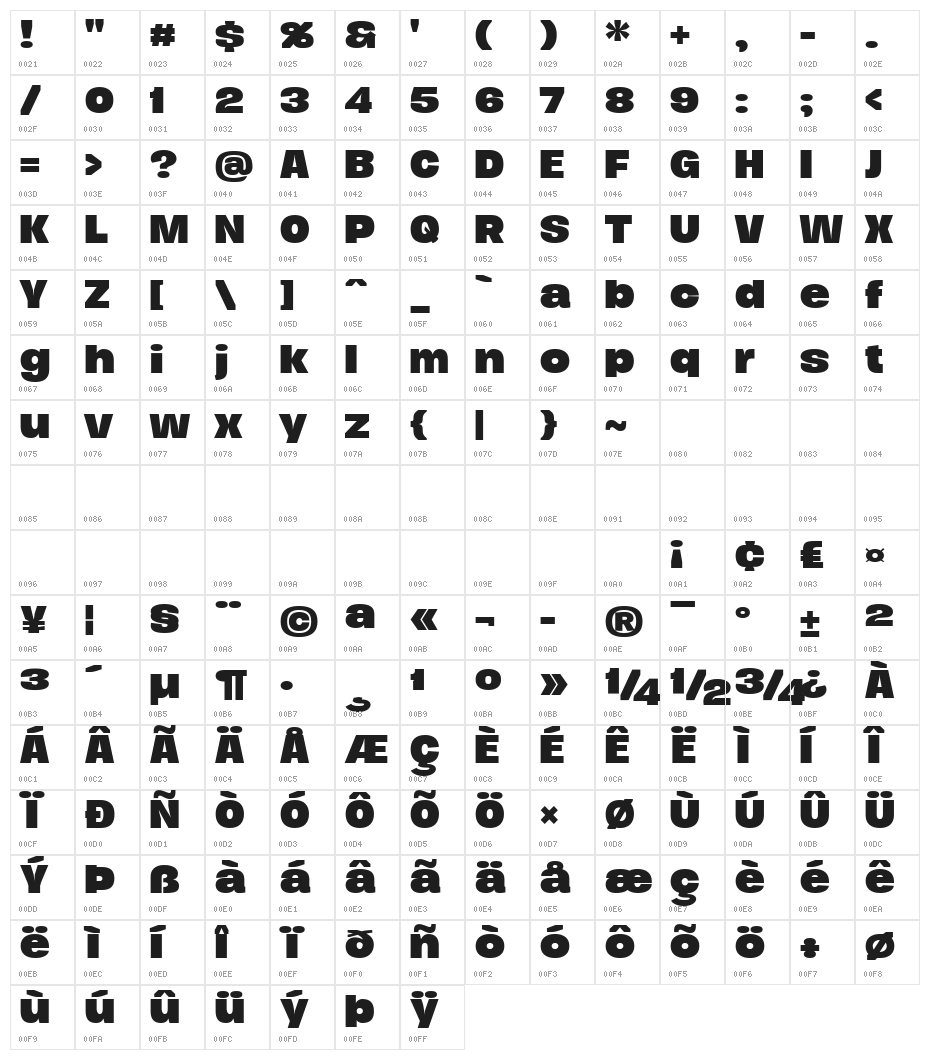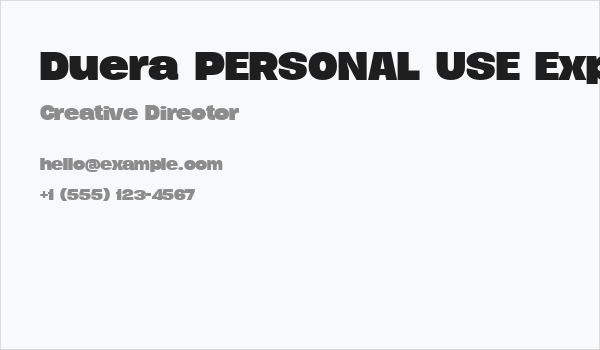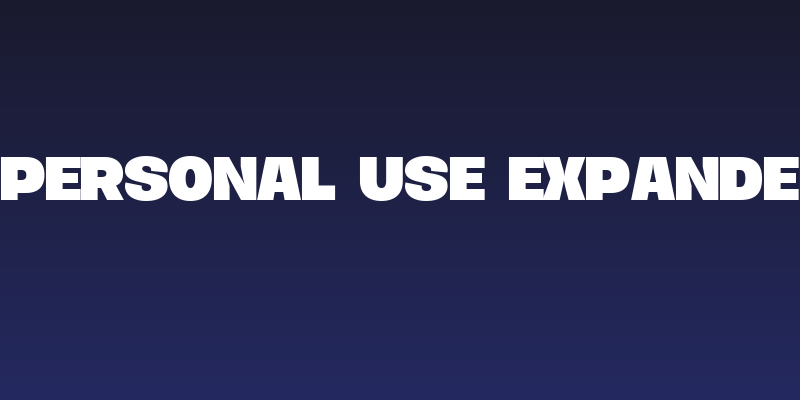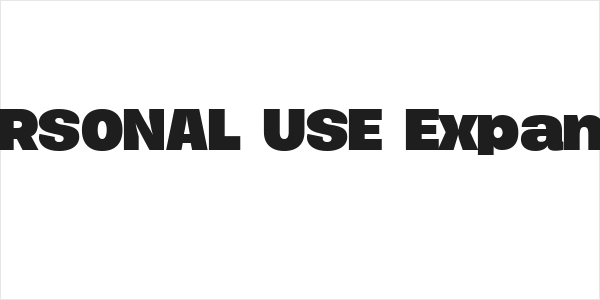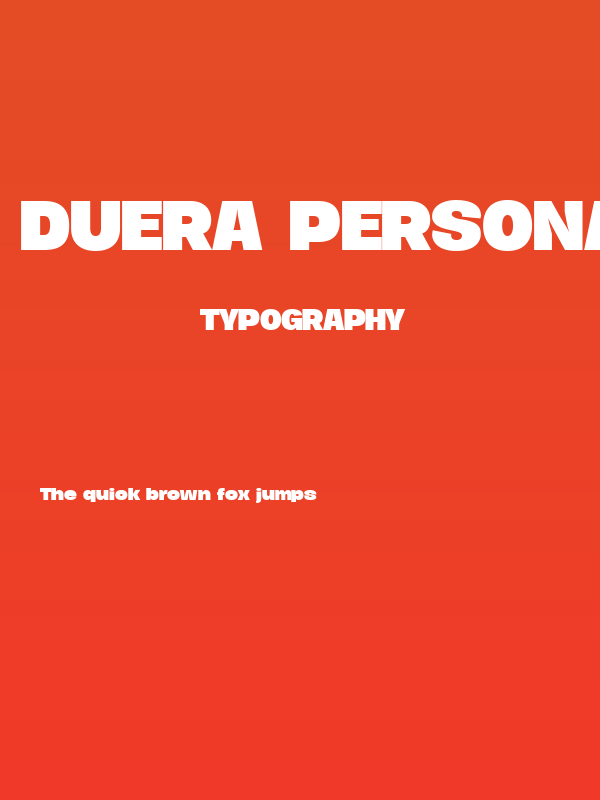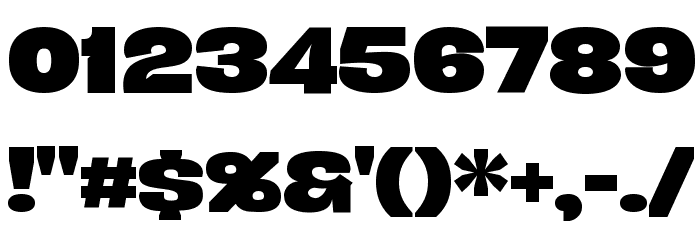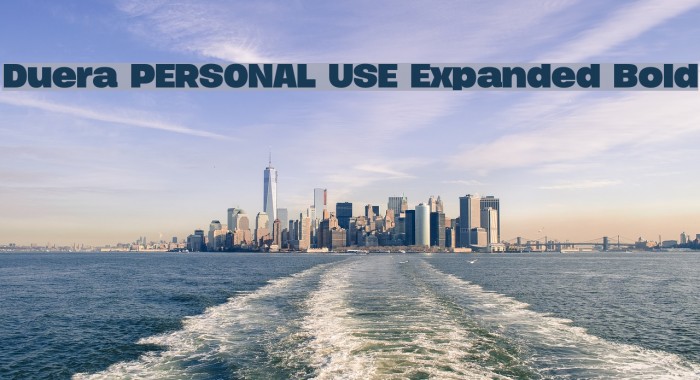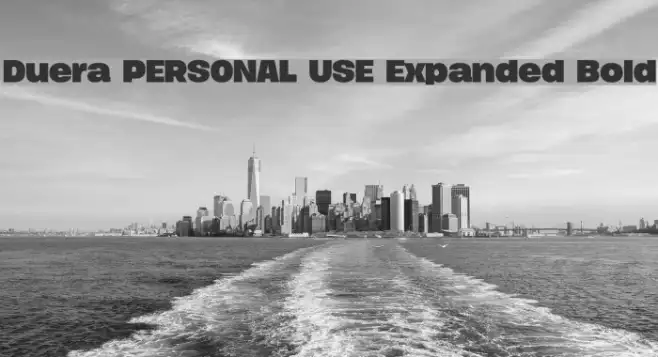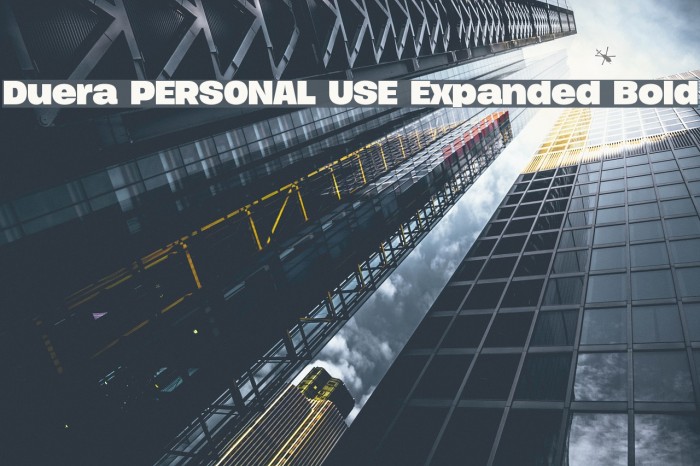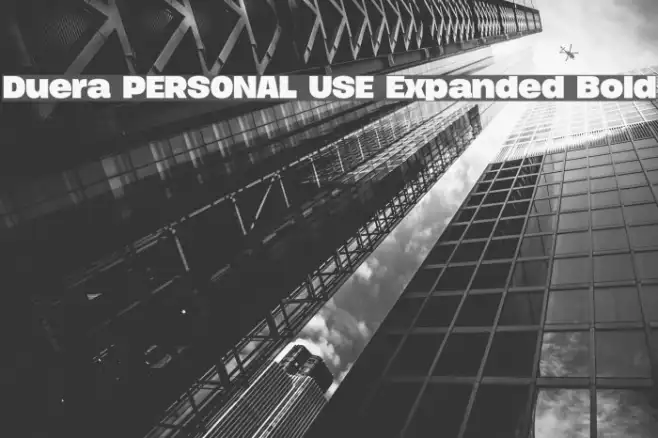
Duera PERSONAL USE Expanded Bold Font
Duera PERSONAL USE Expanded Bold Description
This font is characterized by its bold and expanded style, offering a strong and impactful presence. The uppercase and lowercase letters are uniformly thick, with a consistent stroke weight that conveys a sense of stability and confidence. The numbers and special characters maintain this boldness, ensuring a cohesive look across all elements. The font's expanded width allows for a more pronounced appearance, making it ideal for attention-grabbing designs. Its clean lines and lack of serifs contribute to a modern aesthetic, while the boldness adds a touch of assertiveness.
| Proposed Projects | Ideal for headlines, posters, branding, and any design requiring a strong visual impact. |